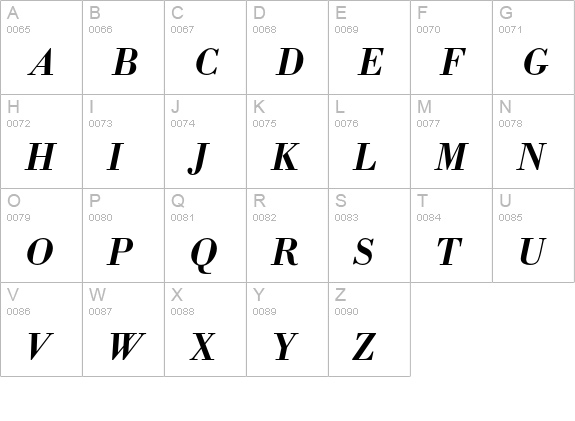
BodoniEF-DemiBoldIta is a stunning and elegant typeface that exudes sophistication and class. With its bold and italic design, this font commands attention and adds a touch of luxury to any project. The striking contrast between thick and thin strokes creates a sense of balance and harmony, making it perfect for headlines, titles, and other prominent text. This font is not only stylish but also versatile, suitable for a wide range of design applications. Whether you're creating a high-end magazine spread, a sleek website layout, or a luxurious invitation, BodoniEF-DemiBoldIta will elevate your design to the next level. The best part? BodoniEF-DemiBoldIta is available for free download at FontsMarket.com. Now you can enhance your projects with this exquisite font without breaking the bank. Don't miss out on this opportunity to add a touch of sophistication to your designs with BodoniEF-DemiBoldIta.